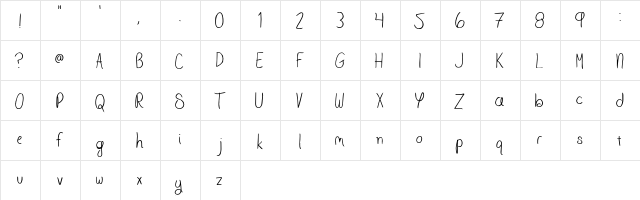
Scranton Fancy Regular
| Foundry | Skyhaven |
| Designer | =^_^= |
Design Context for Scranton Fancy Typeface
Scranton Fancy is a composed and adaptable typeface that performs quietly and consistently across a wide range of design contexts.